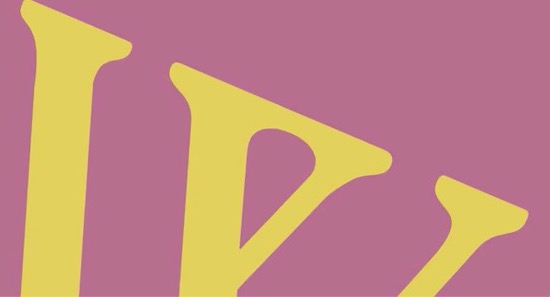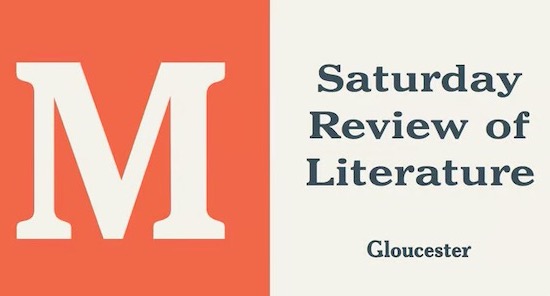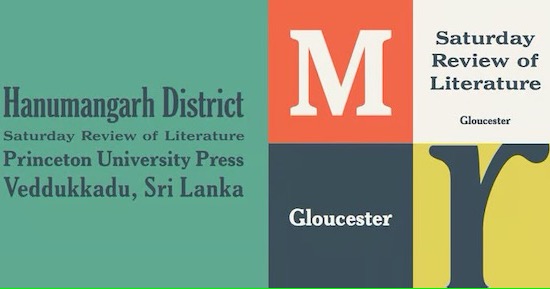
Gloucester is a classy and modern serif font with visual chic, and smooth strokes, making your design project look really attractive. It’s great for book titles, social media, logo design, and more. It was designed and published by Monotype Studio along with five appealing styles.
Gloucester Serif Font
Name: Gloucester